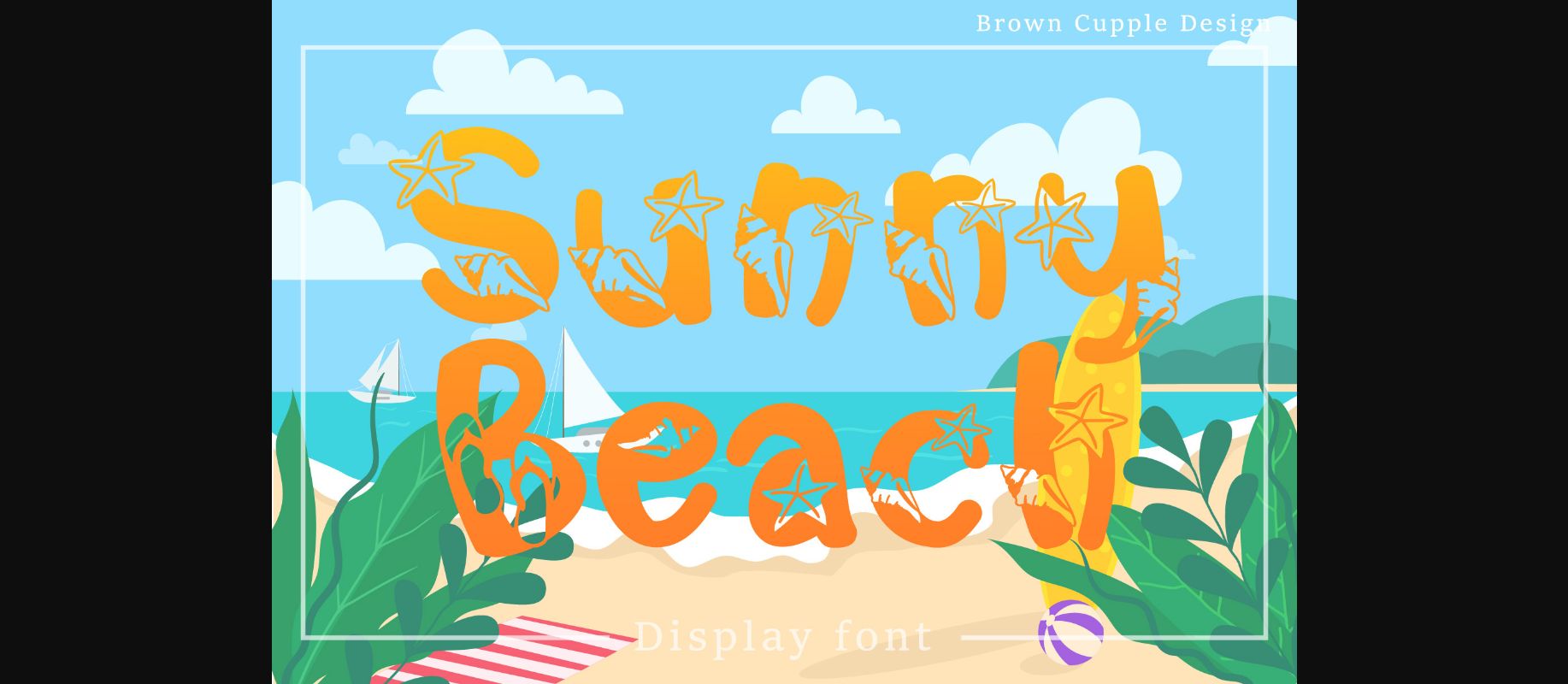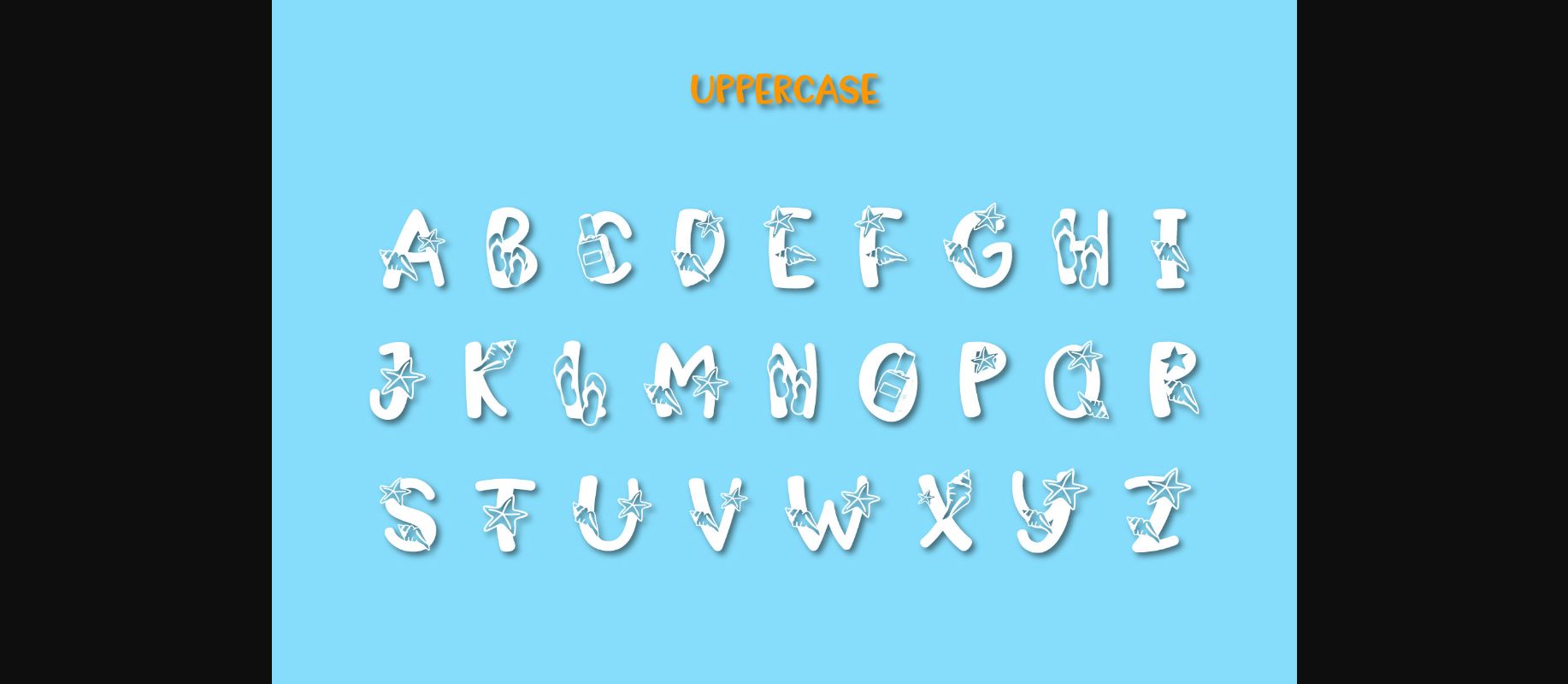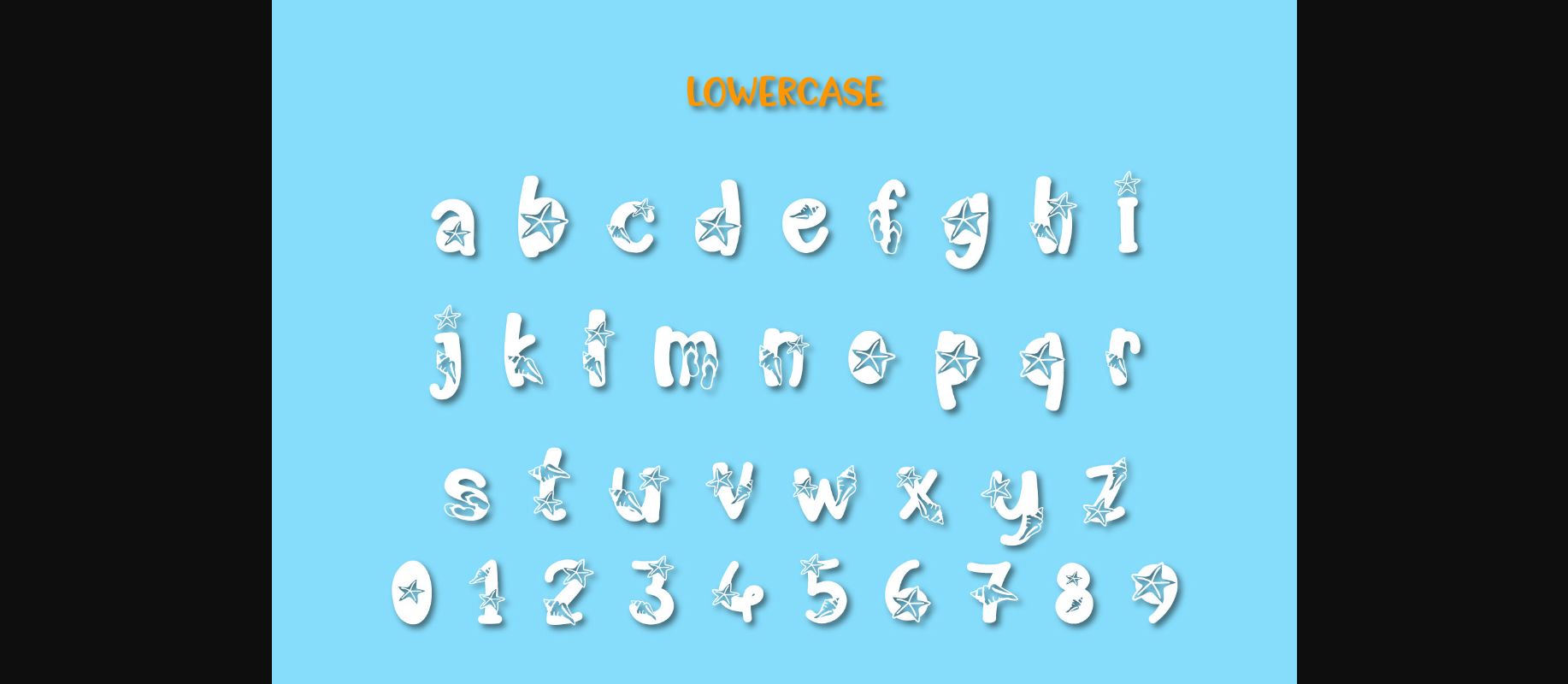
About Sunny Beach Font
Sunny Beach is a cool and kid styled decorative font. You can use it for various projects, such as blog posts, logos, branding, ads, invitations, greeting cards, planners, photo albums, decorations, and much more. Add it to any of your designs, and enjoy the results!